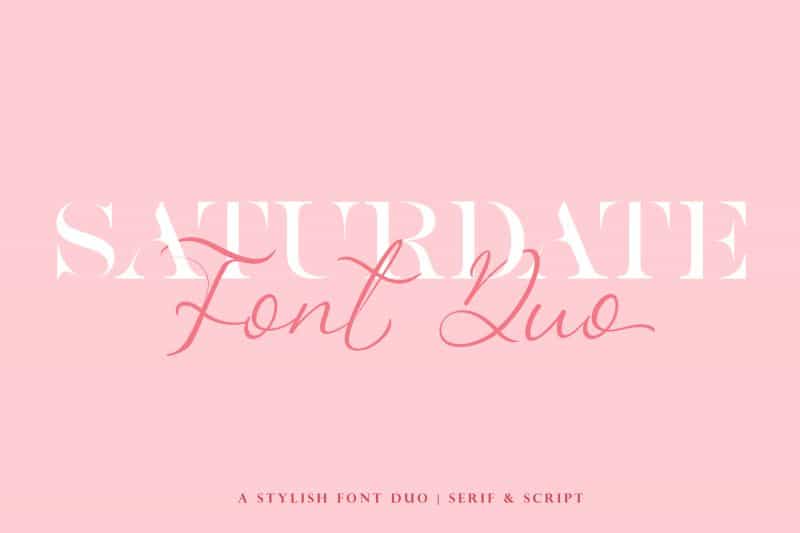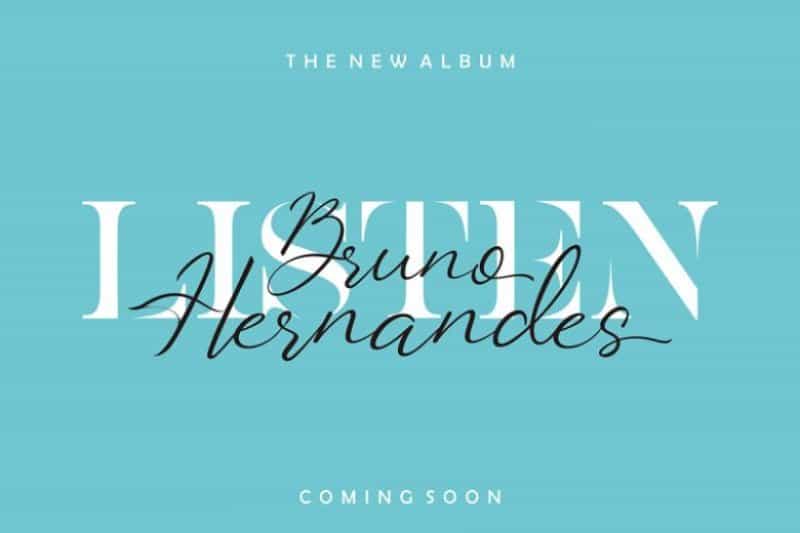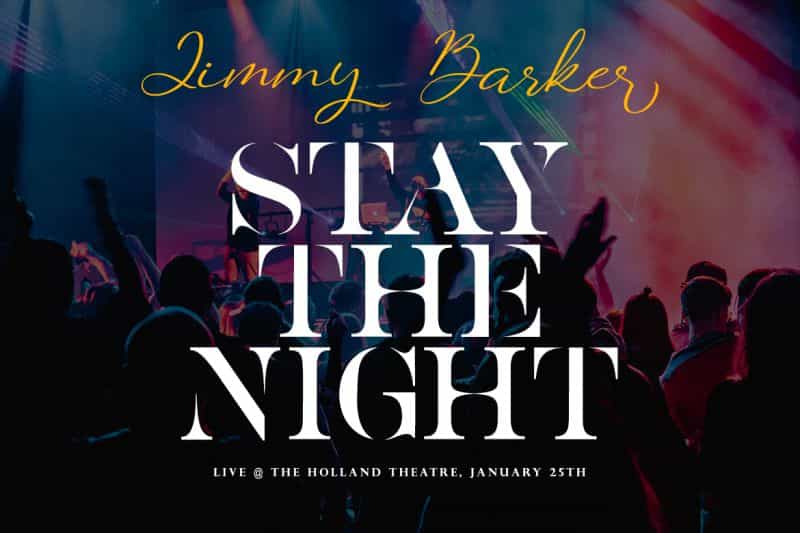
Discover Saturdate Font Duo, part of the Handwritten Serif collection—a versatile and unique font perfect for adding a personal touch to your projects. Download it for free and enjoy crafting designs with style, from invitations to social media posts. This font is available exclusively for personal use, giving you the freedom to create without limits. Unlock your creativity with Saturdate Font Duo today!
Introducing Saturdate. The Saturdate is a font duo that has a clear and sophisticated style. It comprises not only a signature, but also an all caps bold serif type. This stylish pair is very user-friendly and has a fantastic visibility. It can be used for watermarks, signature logos, album covers, business cards, quotes and a lot of other things!